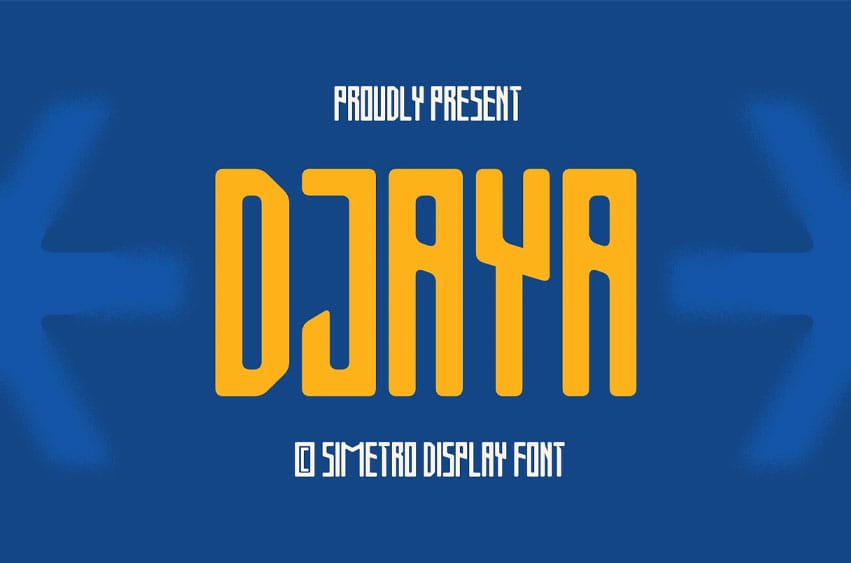
Djaya Font is a bold and futuristic display font that blends modern minimalism with strong character design. Its tall, narrow letterforms create a striking presence, perfect for posters, branding, tech vibes, and social media graphics.
Djaya carries an urban spirit, clean, powerful, and stylish, making it a great choice for projects that want to stand out with confidence and energy. Whether for headlines, logos, or digital campaigns, Djaya adds a contemporary edge with personality to your design.